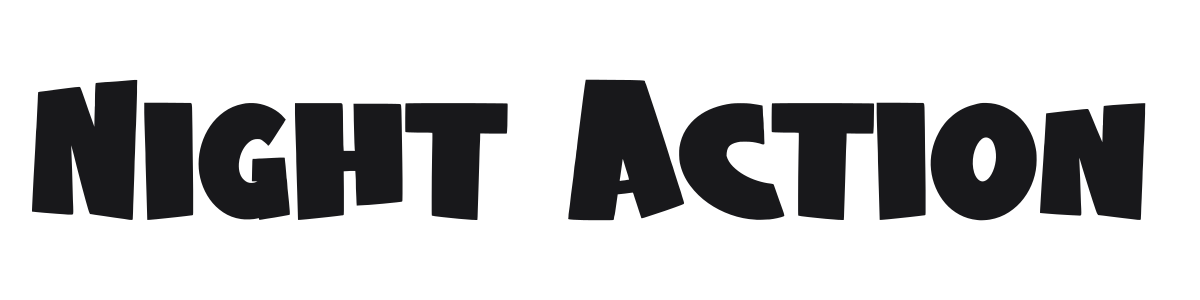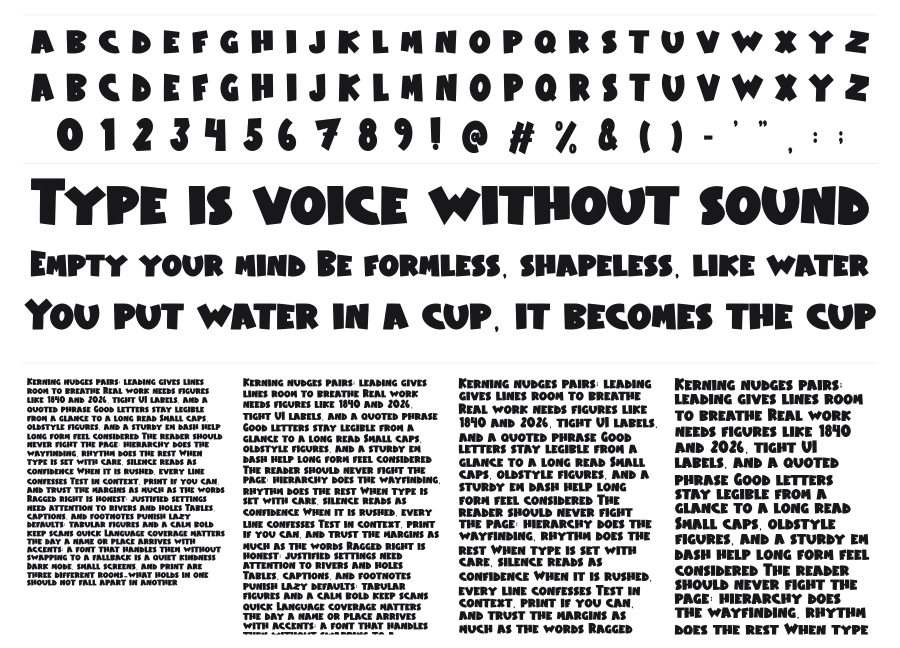
Night Action
Night Action is a heavy condensed display font with a bold comic-book personality. Its thick, slightly irregular strokes and rounded terminals give it a hand-crafted energy that feels both punchy and approachable. Strong at large sizes for posters, game titles, and youth-oriented branding.